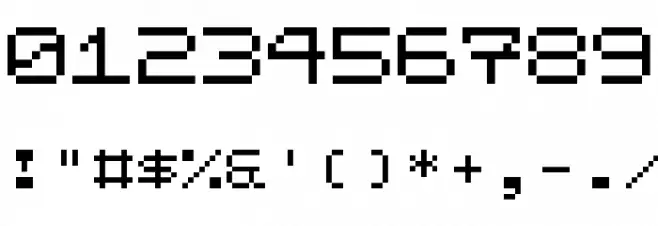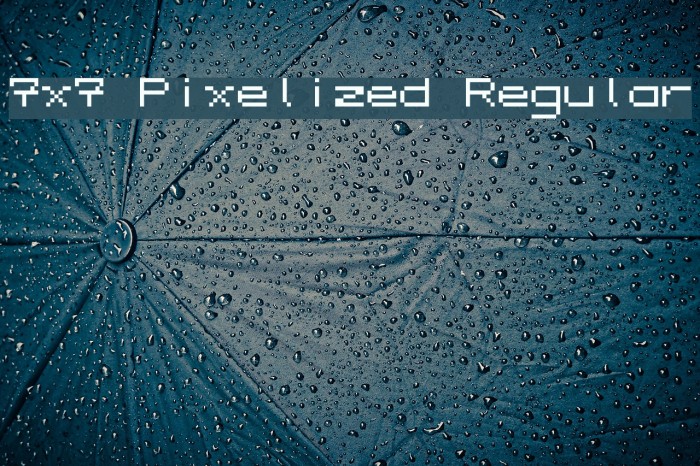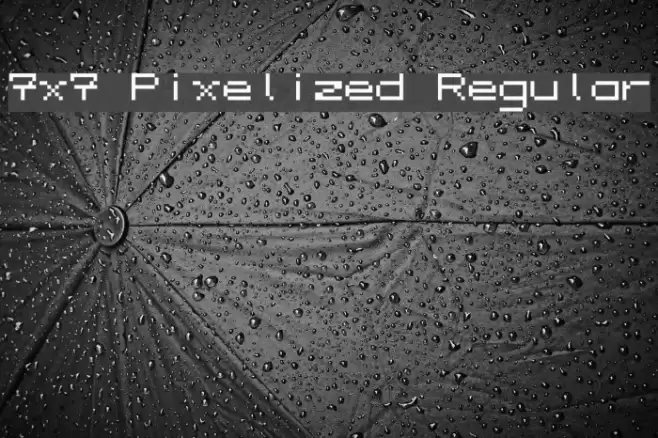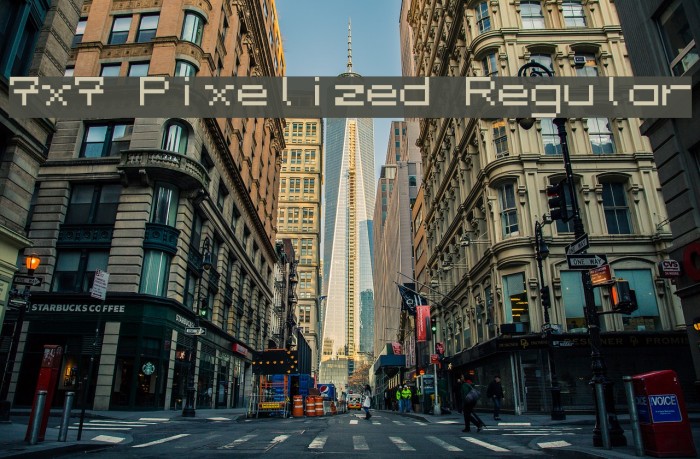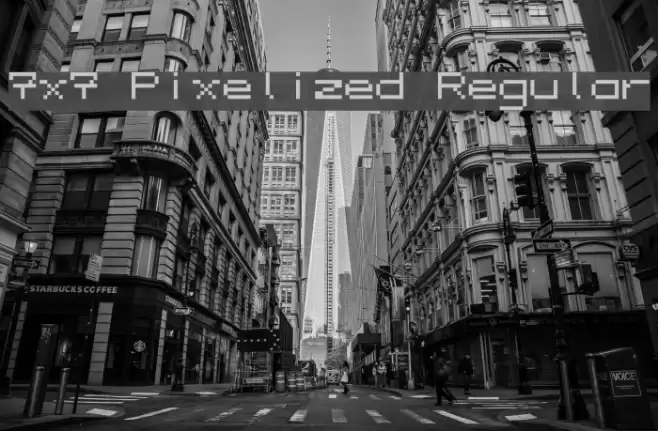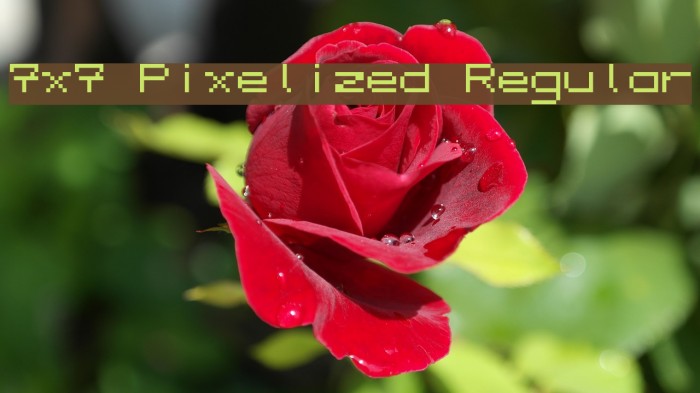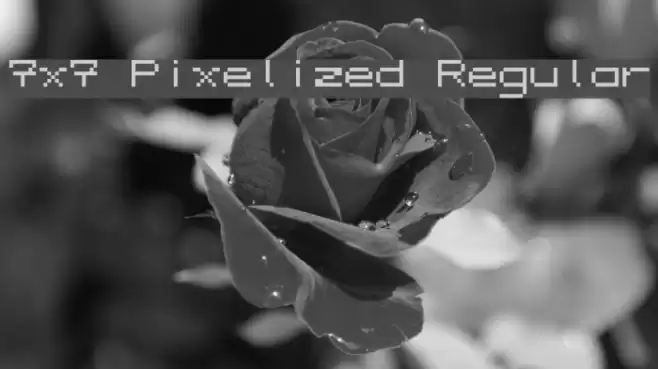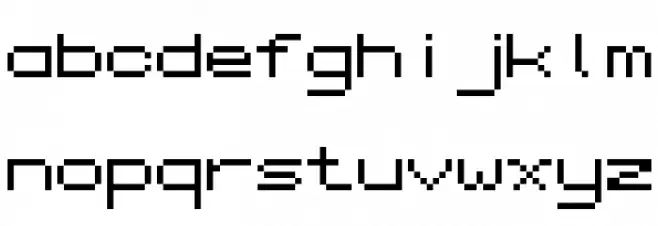
7x7 Pixelized Regular Font
7x7 Pixelized Regular Description
This font features a pixelated, grid-like design reminiscent of early digital displays and retro video games. Each character is constructed with a uniform 7x7 pixel grid, giving it a distinctly blocky and geometric appearance. The font maintains a consistent stroke width throughout, contributing to its low contrast and monospaced nature. Its simplicity and clarity make it highly legible, even at smaller sizes. The uppercase and lowercase letters are easily distinguishable, and the numerals and special characters are designed with the same pixelated style, ensuring a cohesive look across all characters.
A pixelated, monospaced font with a retro digital aesthetic from Uncategorized fonts.
- Proposed Projects: Ideal for retro-themed designs, video game graphics, digital art projects, and any application requiring a nostalgic digital look.
- Overall Style: Retro
- Use Case: Logos, Digital displays, Video game graphics